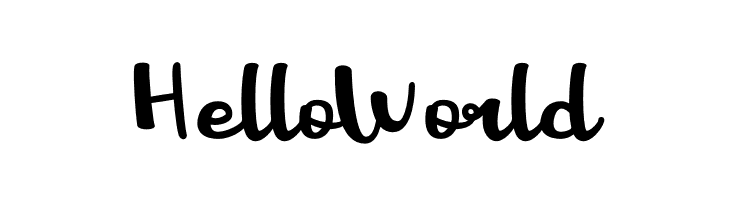
A playful, hand-drawn animal illustration font perfect for creative projects.
A whimsical typeface with characters holding letter signs, ideal for creative projects.
A playful, dynamic handwritten font with fluid strokes and a casual appearance.
A decorative and whimsical font with unique artistic elements.
A decorative and artistic font with intricate patterns and unique designs.
A futuristic, geometric font with a double-line structure and consistent stroke width.
A collection of intricate Madhubani art illustrations.
A collection of silhouette images featuring people and artistic figures.
The image features travel-themed illustrations, not a font.
A pictogram-based decorative font with surreal and whimsical illustrations.
A bold, angular font with medieval influences and modern appeal.
Abstract, collage-like font using cutout imagery for each character.
A modern, fragmented font with bold, circular designs.
A decorative font with stylized big cat illustrations for each character.
A bold, three-dimensional font with playful, dynamic elements and shadow effects.
A decorative font with characters as castle silhouettes.
A modern, geometric sans-serif font with bold, uniform strokes.
An ornate, Victorian-inspired decorative font with intricate flourishes.
An illustrative, cartoon-based decorative font with unique character scenes.
A display font made up of illustrated human faces and characters.
A playful collection of space-themed icons in rounded squares.
An abstract and decorative font with swirling, artistic characters.
A decorative font featuring detailed illustrations of ancient artifacts and motifs.
A decorative, geometric font with bold, angular shapes and unique patterns.
Ornate font with gargoyle illustrations as characters.
A decorative font with playful symbols and bold arrows.
من المفضلات مؤخرًا ZoologicalGardenThree, TypoAlphabetReaders, AdAstra, SaltoOne Regular and SaltoTwo Regular. توازن هذه الخطوط بين الوضوح والشخصية وتناسب العلامات التقنية، وتصاميم التحرير، ومرئيات الشبكات الاجتماعية.